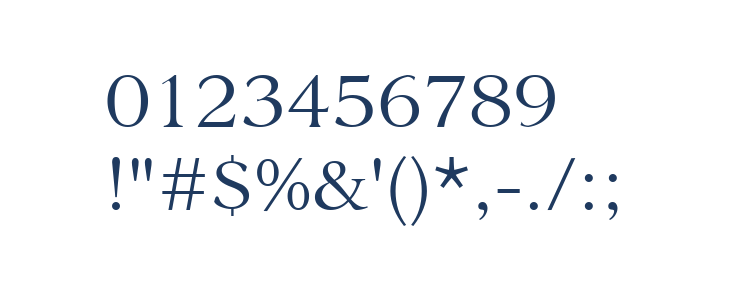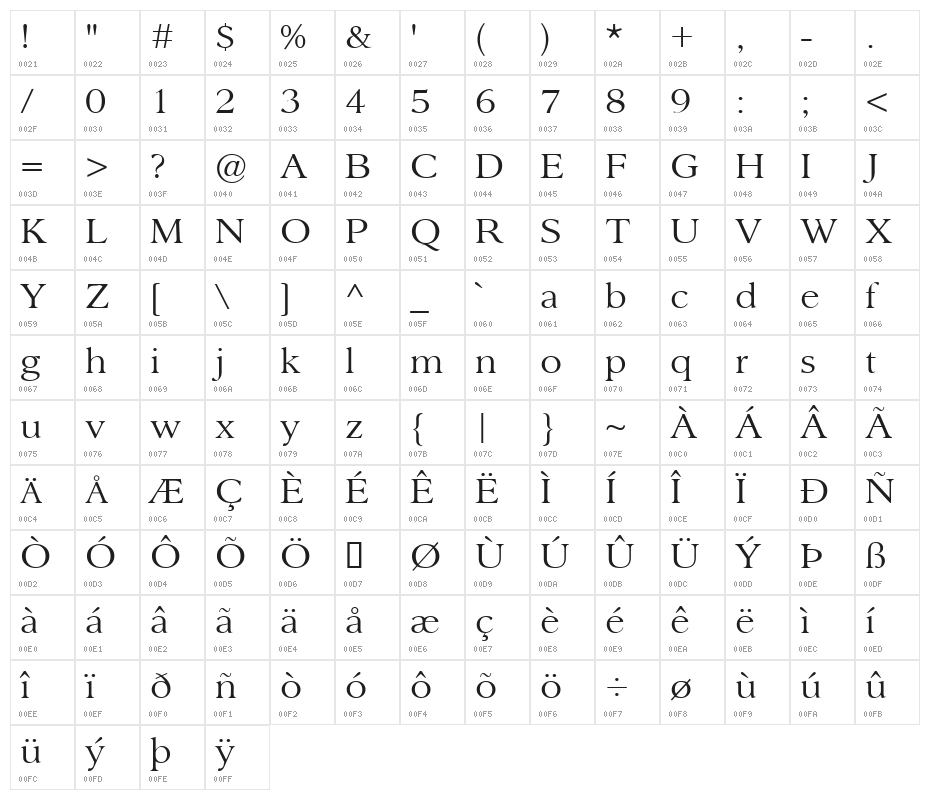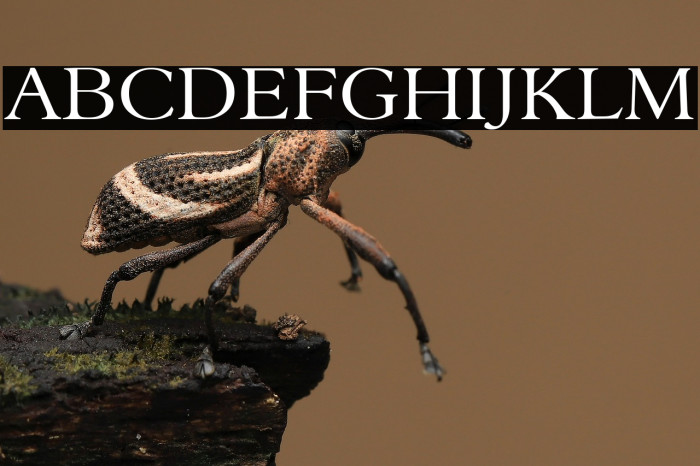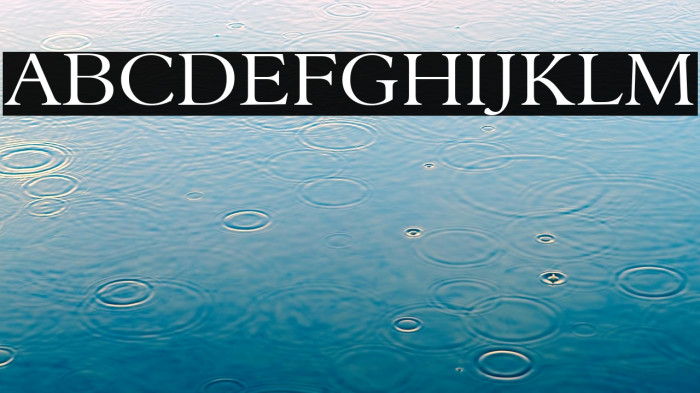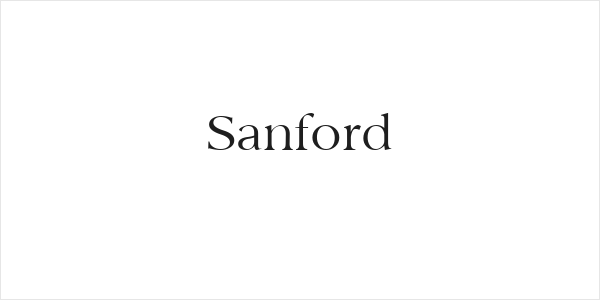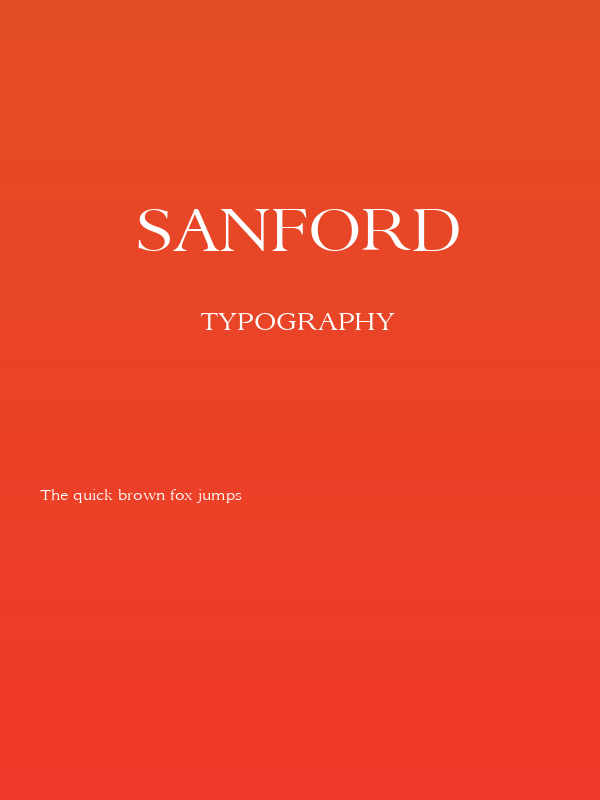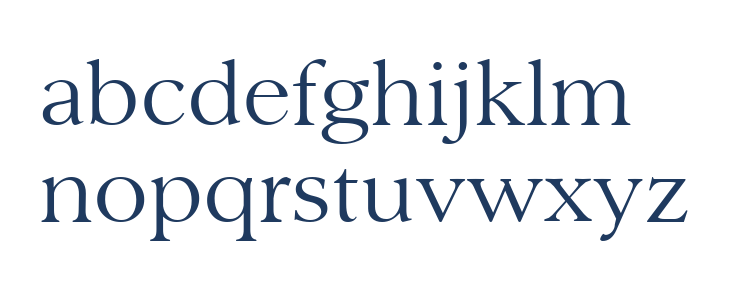
Sanford Font
Sanford Description
This font features a classic serif style with elegant, thin strokes and moderate contrast between thick and thin lines. The serifs are well-defined, providing a traditional and sophisticated appearance. The uppercase letters are slightly taller than the lowercase, maintaining a balanced proportion. The numerals are clear and distinct, making them easy to read. Special characters are designed with the same attention to detail, ensuring consistency across all glyphs. The overall design is timeless, suitable for formal and professional applications.
| Use Case | Body text, Headlines, Logos |
| Proposed Projects | Ideal for book typesetting, formal invitations, and corporate branding. |